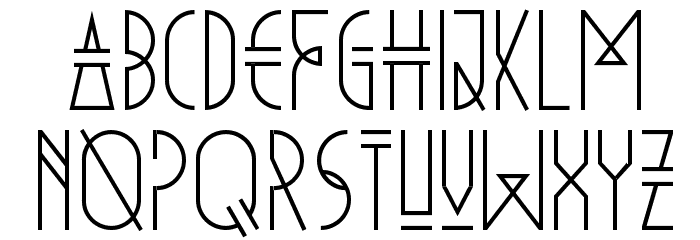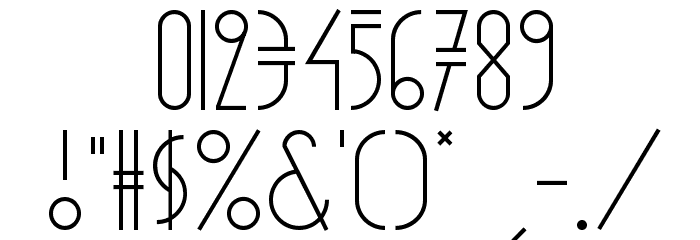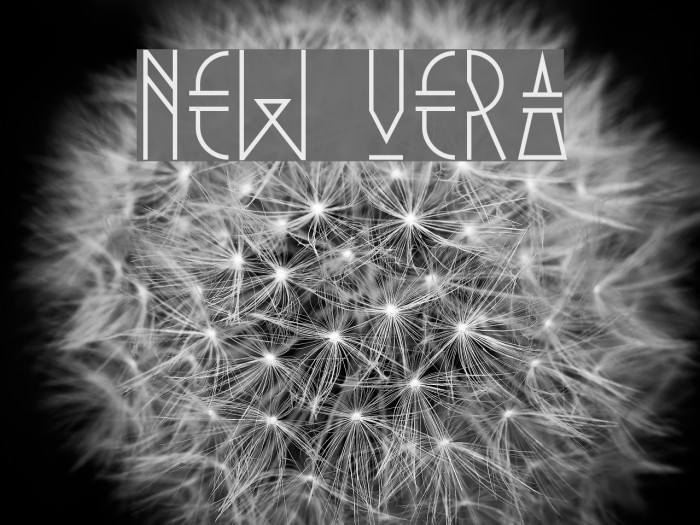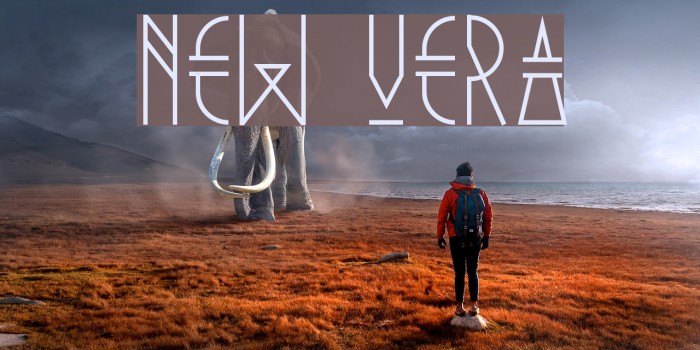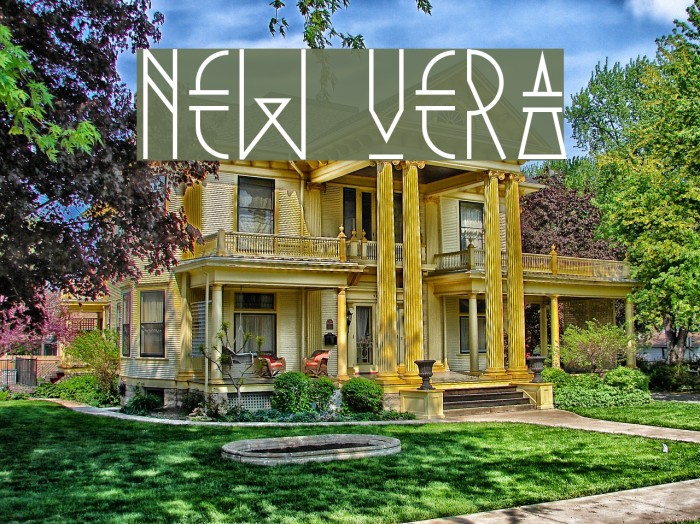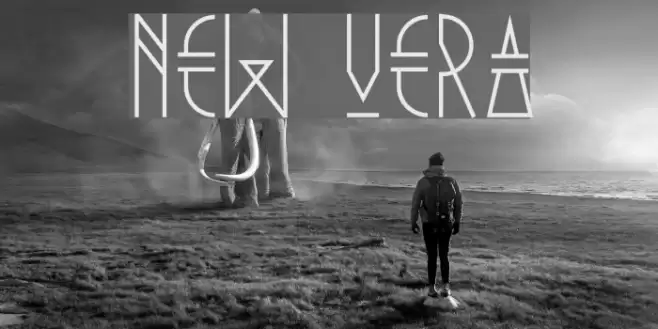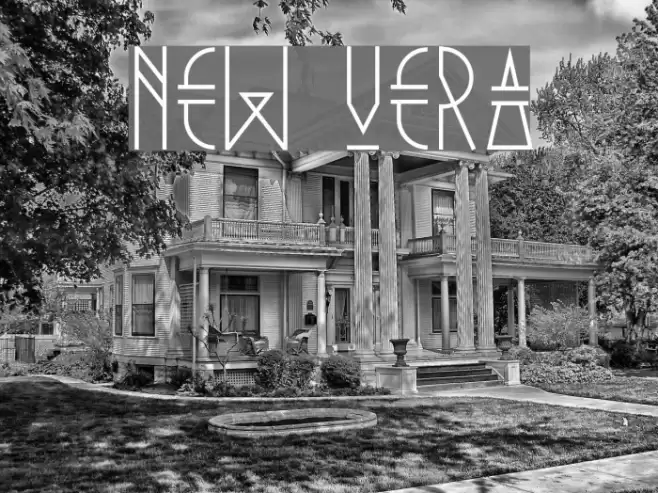
New Vera Font
This font presents a unique and modern geometric style, characterized by its thin, linear strokes and angular forms. The uppercase letters feature distinct triangular and circular elements, creating a futuristic and abstract appearance. The lowercase letters maintain this geometric theme, with consistent line thickness and sharp angles. The numerals are similarly styled, offering a cohesive look throughout the character set. Special characters are designed with the same attention to geometric detail, enhancing the font's overall aesthetic. This font's design is both striking and minimalistic, making it suitable for contemporary design projects.
A modern geometric font with thin, linear strokes and angular forms.
- Font: New Vera
- Proposed Projects: Ideal for branding, posters, and digital media that require a futuristic and minimalistic touch.